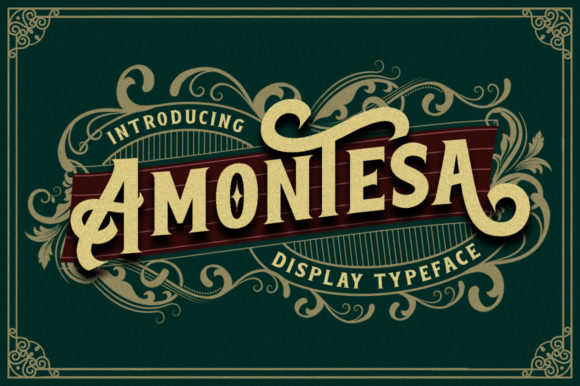
The Designer’s Delight: Amontesa Font
I’ll never forget the struggle I faced while working on a fashion branding project. My client wanted a bold, stylish font that would make their brand stand out, but I was stuck with a bland, generic sans-serif font. That’s when I discovered Amontesa, a vintage-styled display font that instantly elevated my design. In this article, I’ll share my experience with Amontesa, its features, and how to make the most of it in your designs.
An Honest Review of Amontesa
- ✨ Smooth curves: Amontesa’s curves are beautifully smooth, making it perfect for fashion branding and editorial designs.
- ✅ Readability: Despite being a bold font, Amontesa remains surprisingly readable, even at smaller sizes.
- 💃 Stylish and versatile: Amontesa works well for both headlines and titles, and its vintage vibe adds a touch of sophistication to any design.
While Amontesa is an excellent font, it’s not without its quirks. For instance:
- 🤔 Limited use for body text: Due to its bold nature, Amontesa might not be the best choice for lengthy body text. Stick to headings and titles for the best results.
- ⚠️ Kerning issues at small sizes: Be mindful of kerning when using Amontesa at smaller sizes, as it may require manual adjustments for optimal results.
- Experiment with OpenType features like ligatures and stylistic alternates to add visual interest.
The Story Behind Amontesa
Amontesa was designed with the goal of creating a bold, yet elegant font that would evoke the sophistication of vintage typography. Its creator drew inspiration from classic fashion brands and editorial designs, aiming to craft a font that would be both stylish and readable.
| Font Name | Amontesa Font |
| Author | Megatype |
Q: What type of projects is Amontesa best suited for?
A: Amontesa excels in fashion branding, editorial designs, and any project requiring a bold, stylish font.
Q: Does Amontesa support OpenType features?
A: Yes, Amontesa supports OpenType features, including ligatures and stylistic alternates, allowing for added visual interest.
Q: Can I use Amontesa for body text?
A: While Amontesa is readable, its bold nature makes it better suited for headings and titles. Consider using a complementary font for body text.